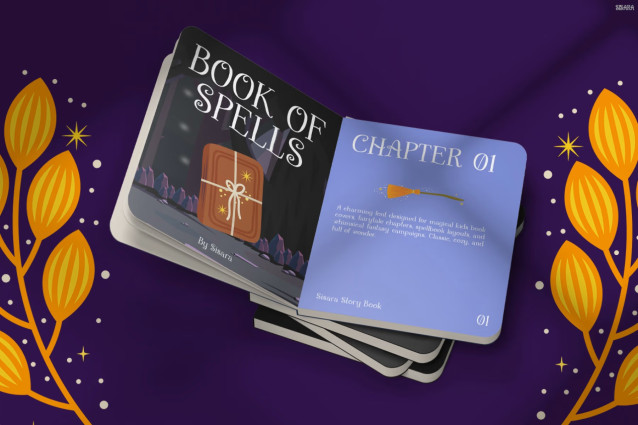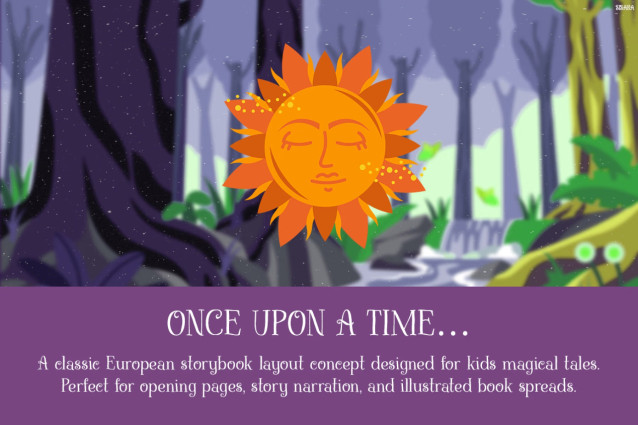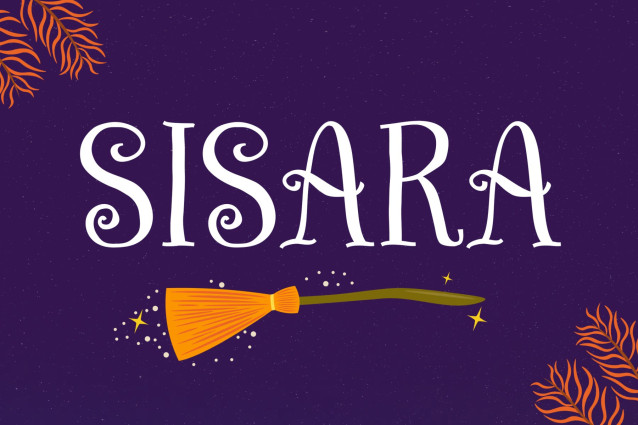
Sisara Font
Sisara – Enchanting Fantasy Kids Font for Magical Stories & Fairytale Designs
Kids Font Sisara is a whimsical display font inspired by magical storybooks, fantasy adventures, and enchanting fairytales. Designed with elegant curves, mystical letterforms, and playful medieval charm, this font instantly creates a dreamy and imaginative atmosphere. Moreover, the unique decorative style gives every word a magical personality that feels both mysterious and friendly. Inspired by classic European fantasy tales, enchanted forests, magical potions, and fairy kingdoms, Sisara transforms simple text into captivating visual storytelling. At the same time, the font remains readable and versatile, making it perfect for both digital and print projects. In addition, Kids Font Sisara supports 67 languages, helping creators design magical experiences for audiences around the world.
Kids Font Sisara combines fantasy elegance with playful creativity. Not only does the handcrafted style create a magical fairytale aesthetic, but it also gives designs a warm and artistic touch. Furthermore, the decorative details make headlines feel immersive and full of wonder. Because of its unique fantasy-inspired appearance, Sisara works beautifully for projects that need imagination and storytelling power. Meanwhile, the balanced letter structure keeps text readable for titles, branding, and creative layouts. Therefore, this font becomes an excellent choice for creators who want typography that feels magical, adventurous, and unforgettable.